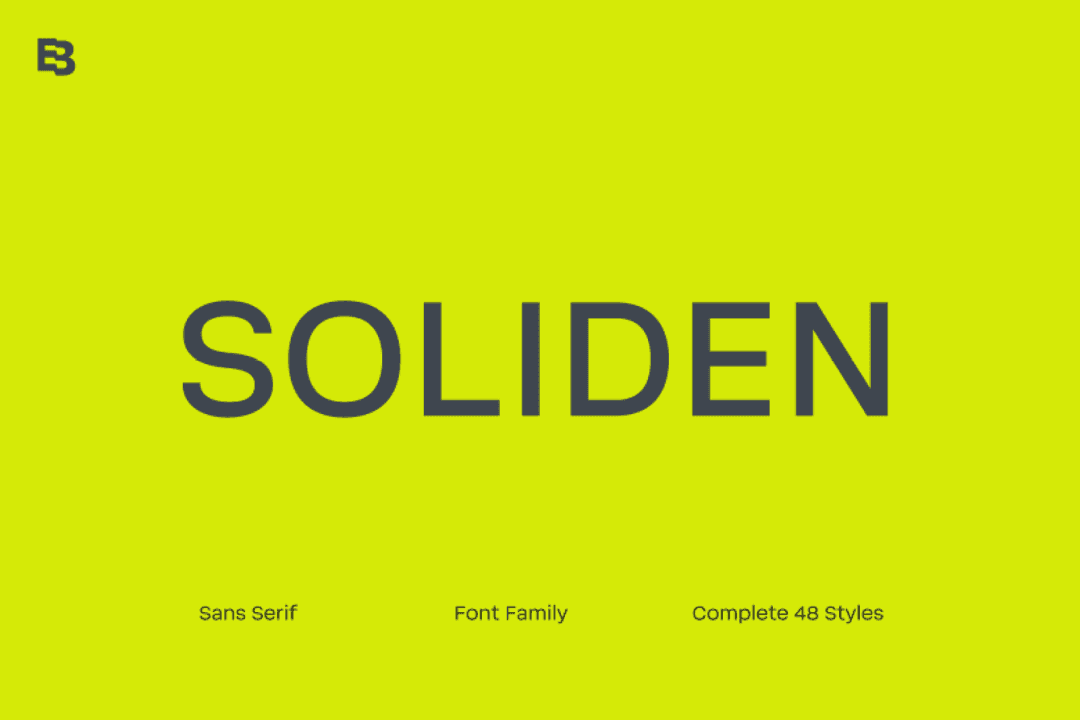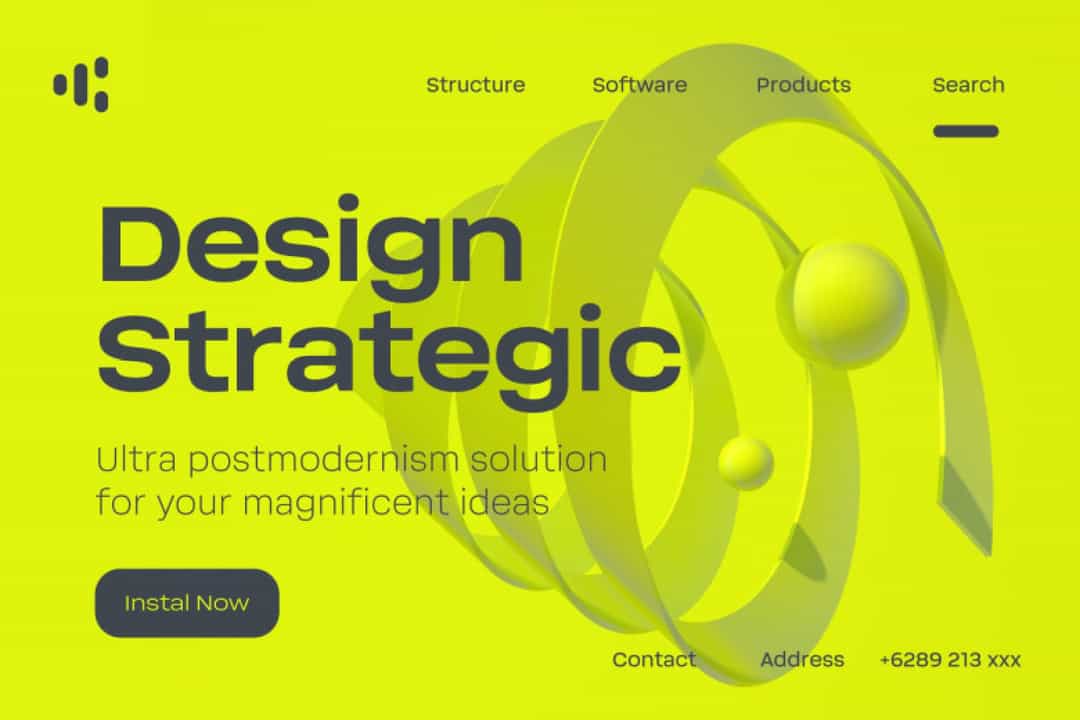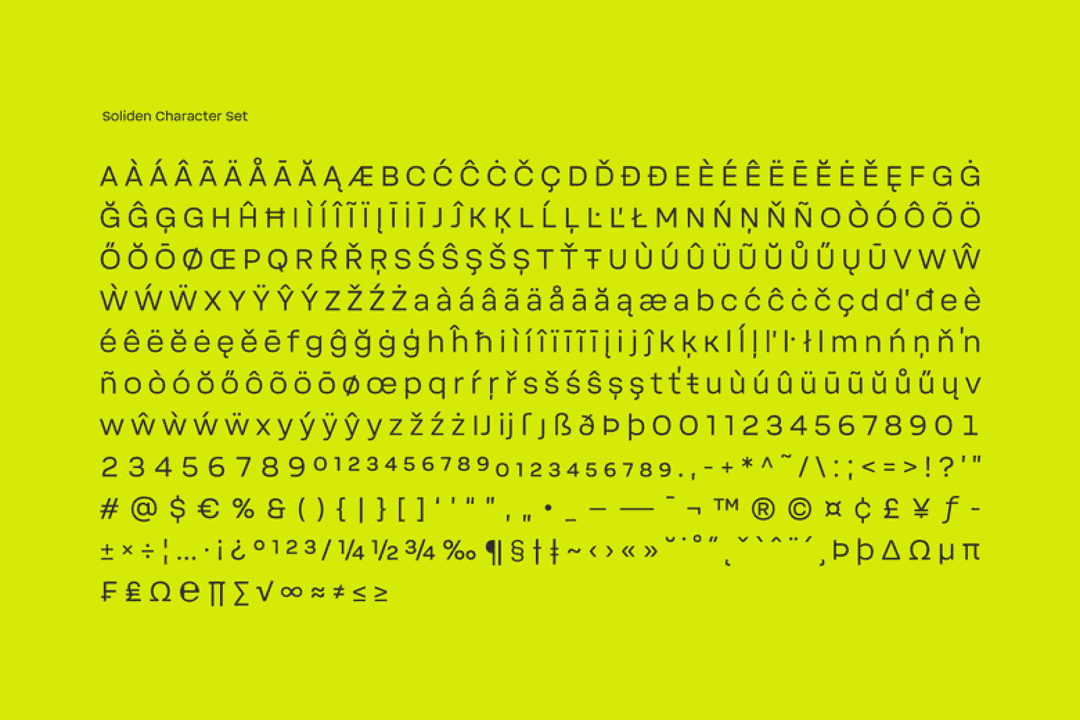
Soliden is an organic simple, modern, flexible sans serif font family that features an edgy yet modern appearance. Created and published by Eko Bimantara in 2022, Soliden became an effective solution for large-scale display purposes as its letterforms feature huge x-heights complemented by spacious counters.